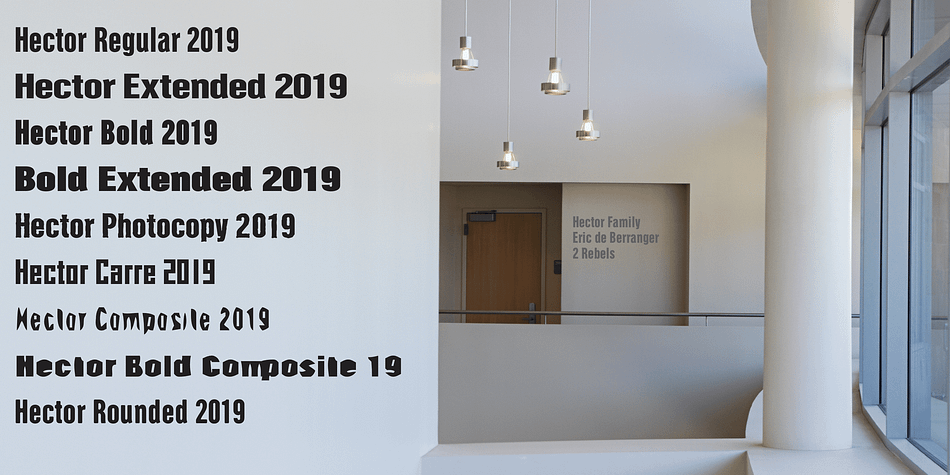
Hector
Designed by Éric de Berranger, Hector is a display sans font family. This typeface has nine styles and was published by FontHaus.
Hector was designed by Éric de Berranger and first released through the Canadian foundry, 2Rebels in the late 1990s. Now exclusive to FontHaus, the Hector family of headline fonts ranges from futuristic to traditional grotesk and from childlike to experimental.
Designer Éric de Berranger